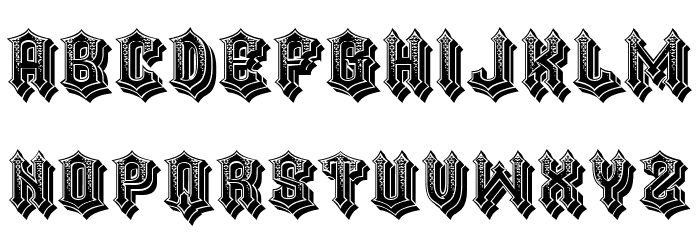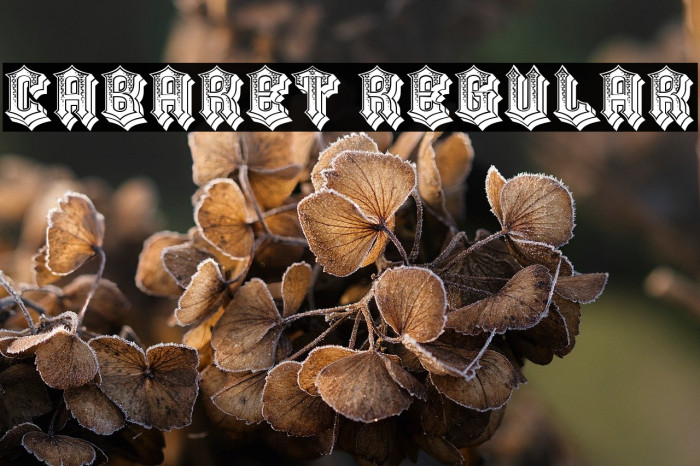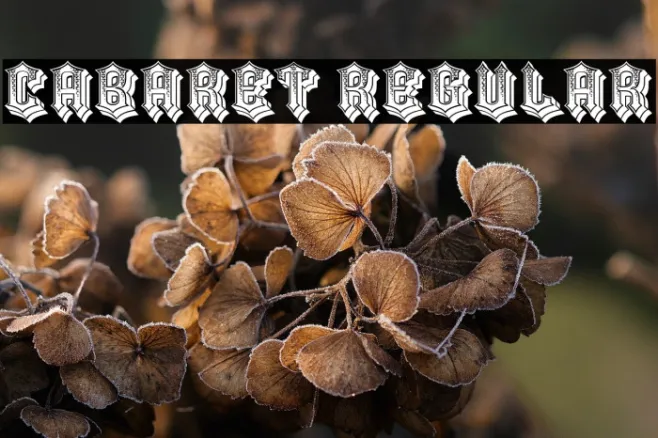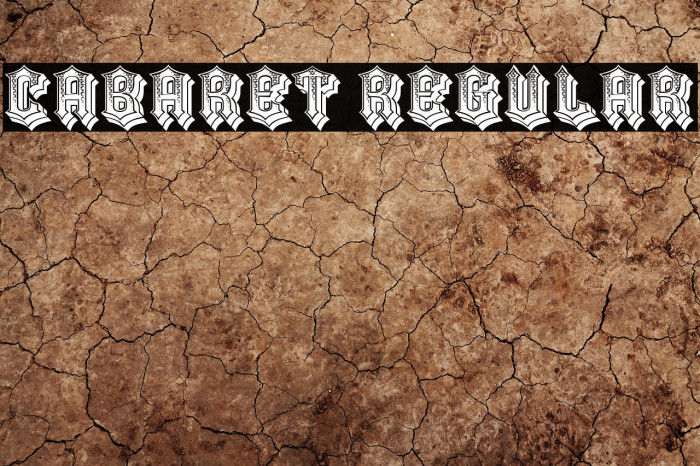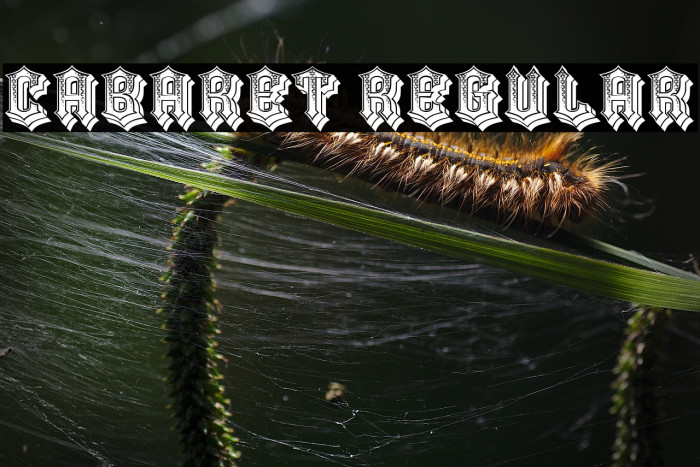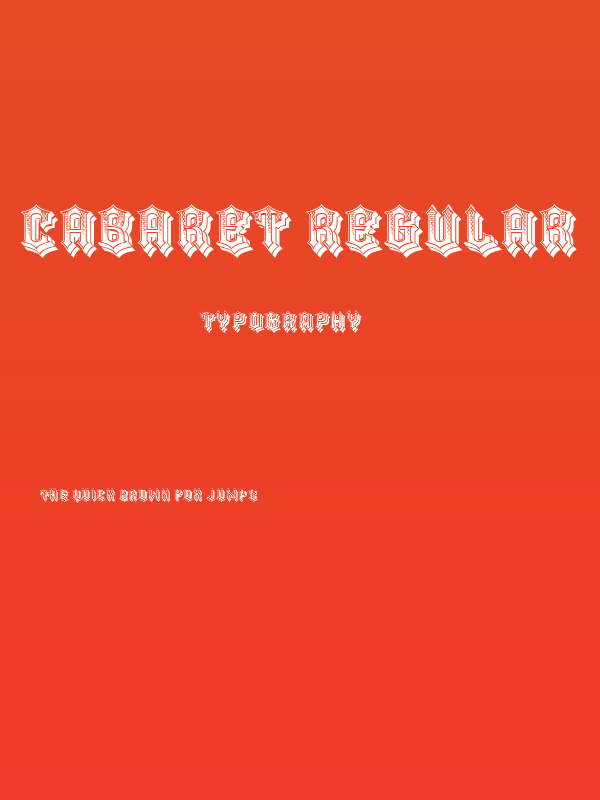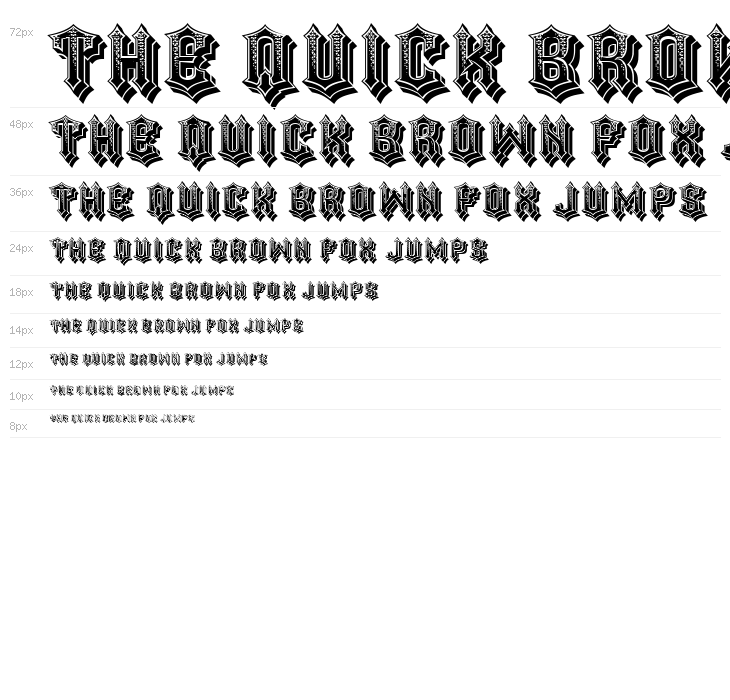
Cabaret Regular Font
Cabaret Regular Description
This font features a bold and intricate design, reminiscent of vintage signage and classic tattoo art. Each letter is adorned with decorative flourishes and sharp edges, creating a striking and dramatic appearance. The font's style is highly ornamental, with a strong emphasis on symmetry and detail. Its bold strokes and elaborate embellishments make it ideal for creating eye-catching headlines and logos. The overall aesthetic is both nostalgic and theatrical, capturing the essence of old-world charm and elegance.
Overall StyleVintage
Proposed ProjectsIdeal for vintage-themed posters, theatrical event invitations, tattoo designs, and retro branding projects.